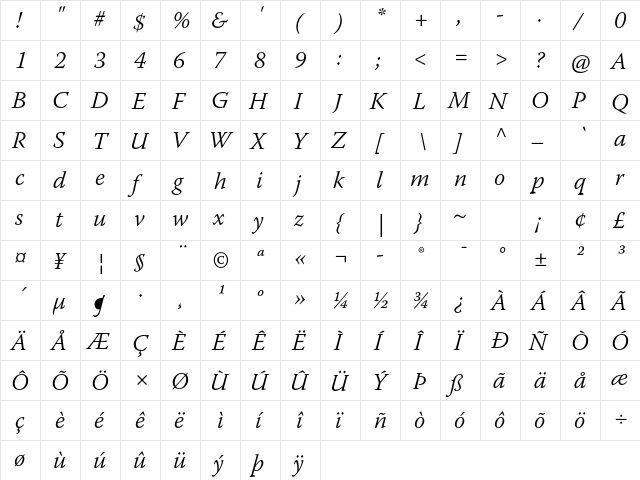
Warnock Pro Light Italic Font Preview
Warnock Pro Light Italic
Warnock Pro Light Italic Font Details
| Style | Light Italic |
| Designer | Robert Slimbach |
Design Context for Warnock Pro Typeface
Warnock Pro is a composed and adaptable typeface that performs quietly and consistently across a wide range of design contexts. The slanted form adds forward momentum and visual energy. Its slender proportions lend an understated elegance to any composition.